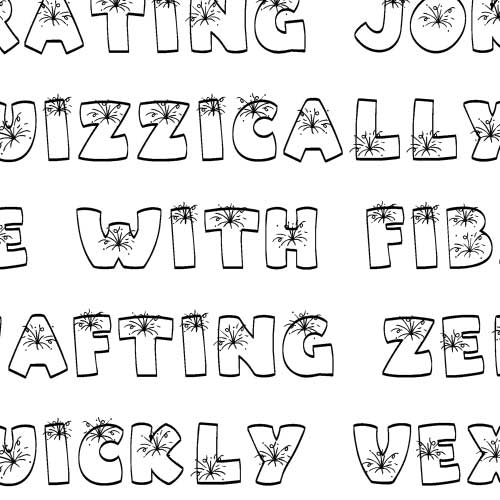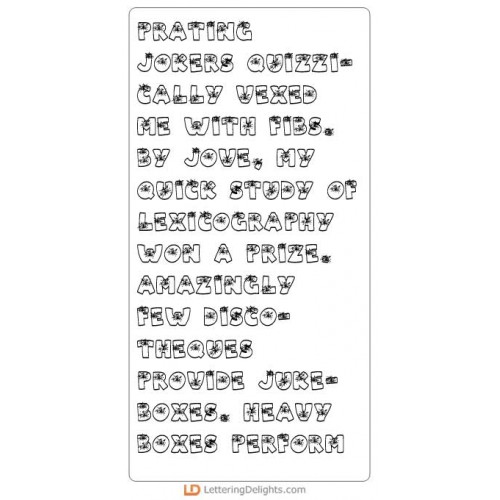
LD Jubilee - Font
This fun font has fireworks going off inside. This would be great for titles to a fireworks scrapbooking page. It also would make a great New Years party invitation.